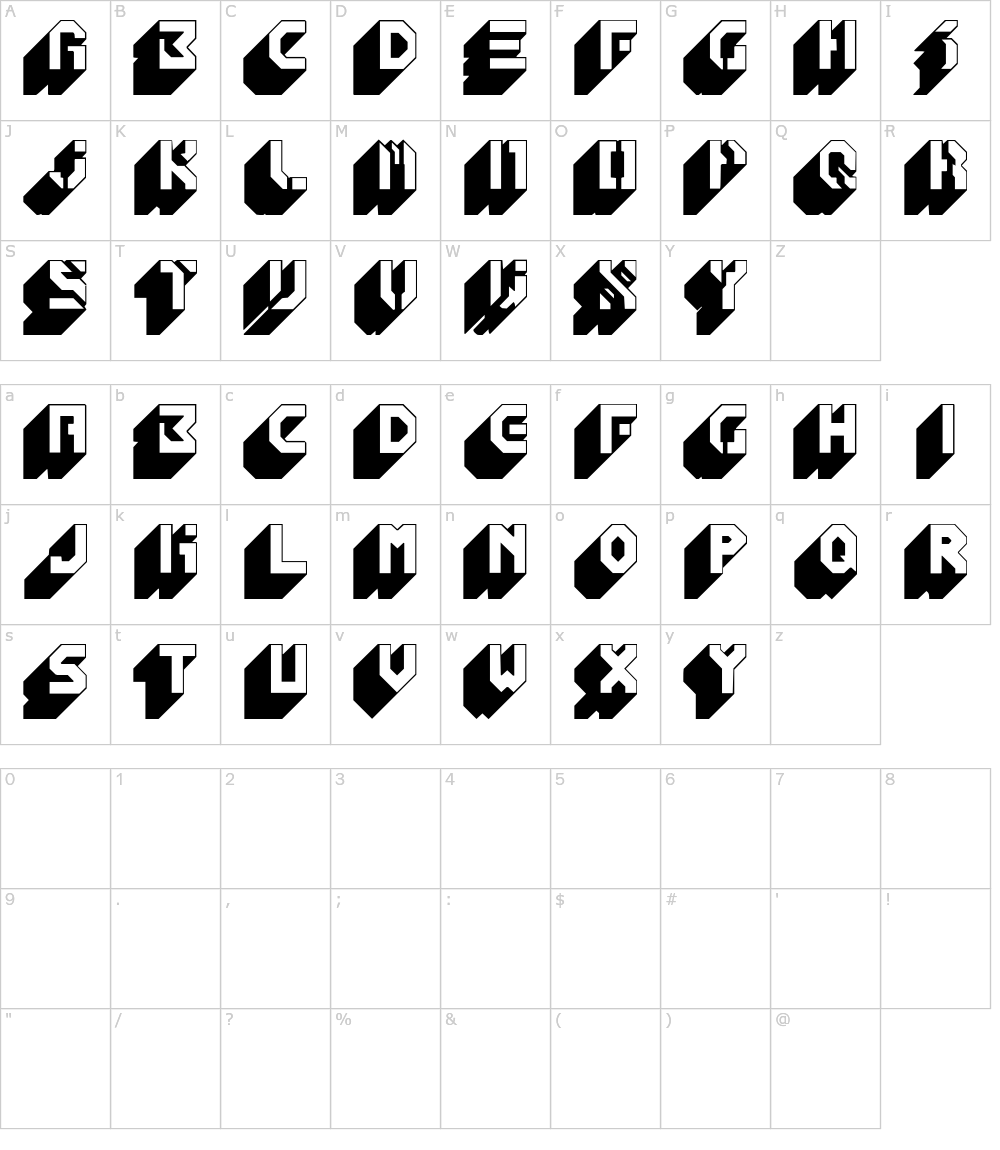
Web complete family of 2 fonts: Blockbuster font family was designed by richard moore and published by m u r. If you really want blockbuster™ and you want to.
It Also Resembles The Hollywood Sign, Military Lettering, And Type Found On Collegiate.
Blockbuster was designed by richard moore and published by m u r. Web blockbuster font download blockbuster font free preview download :: Web blockletter is a clean, basic sans serif based on the now defunct blockbuster video logo.